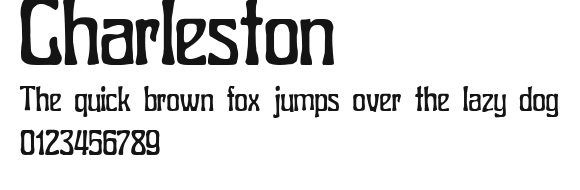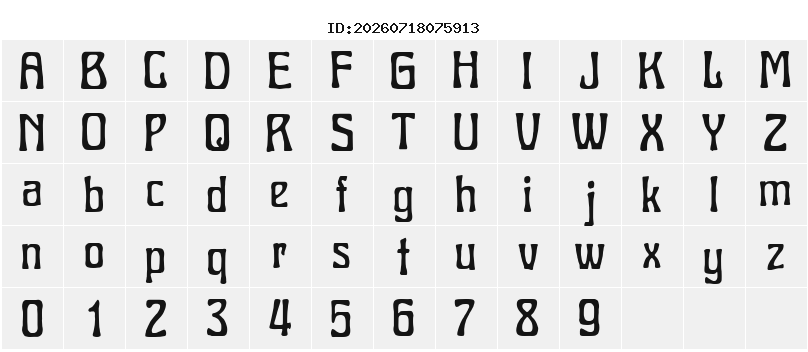
• Font Name: Charleston
• Full Font Name: Charleston
About Charleston.ttf
Charleston.ttf is a modern, elegant sans-serif font designed for ultimate readability and visual harmony. Perfect for branding, headlines, web design, and print materials.